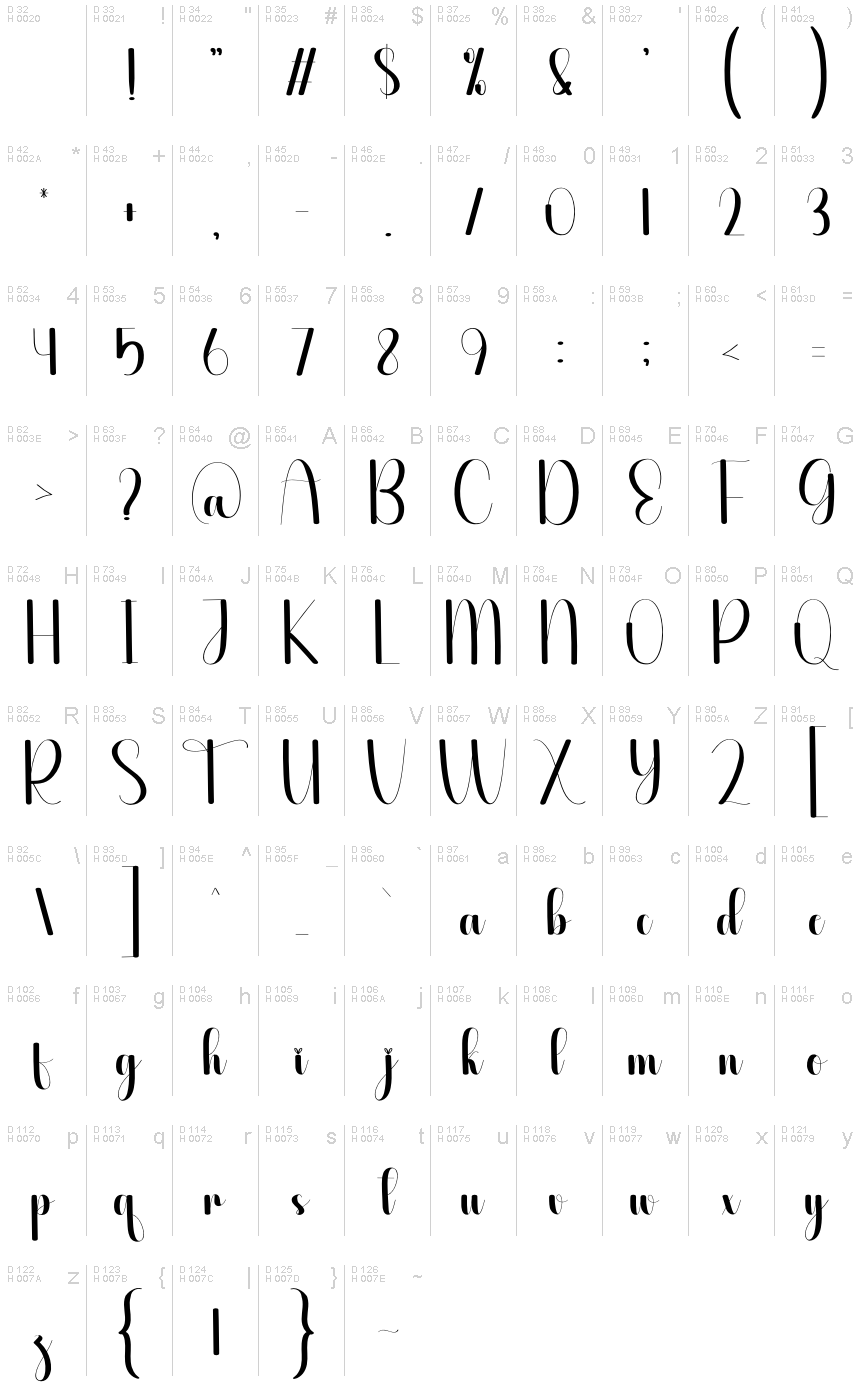
Dayline
Dayline font, designed by Scratchones, is a stunning embodiment of contemporary calligraphy. Its sweeping curves and graceful strokes evoke a sense of elegance and fluidity, making each letter dance across the page. The airy, light composition invites a feeling of sophistication while maintaining a warm and inviting character.
Visually captivating, Dayline's storied lines bring a modern flair to traditional script styles. This font seamlessly fits into various design contexts—from wedding invitations to branding materials—where an aura of charm and uniqueness is desired. Its bold presence yet delicate execution ensures it stands out without overwhelming the viewer, making it perfect for projects that seek to blend creativity with refined taste. Elevate your designs with Dayline; let its artistry speak through your words.